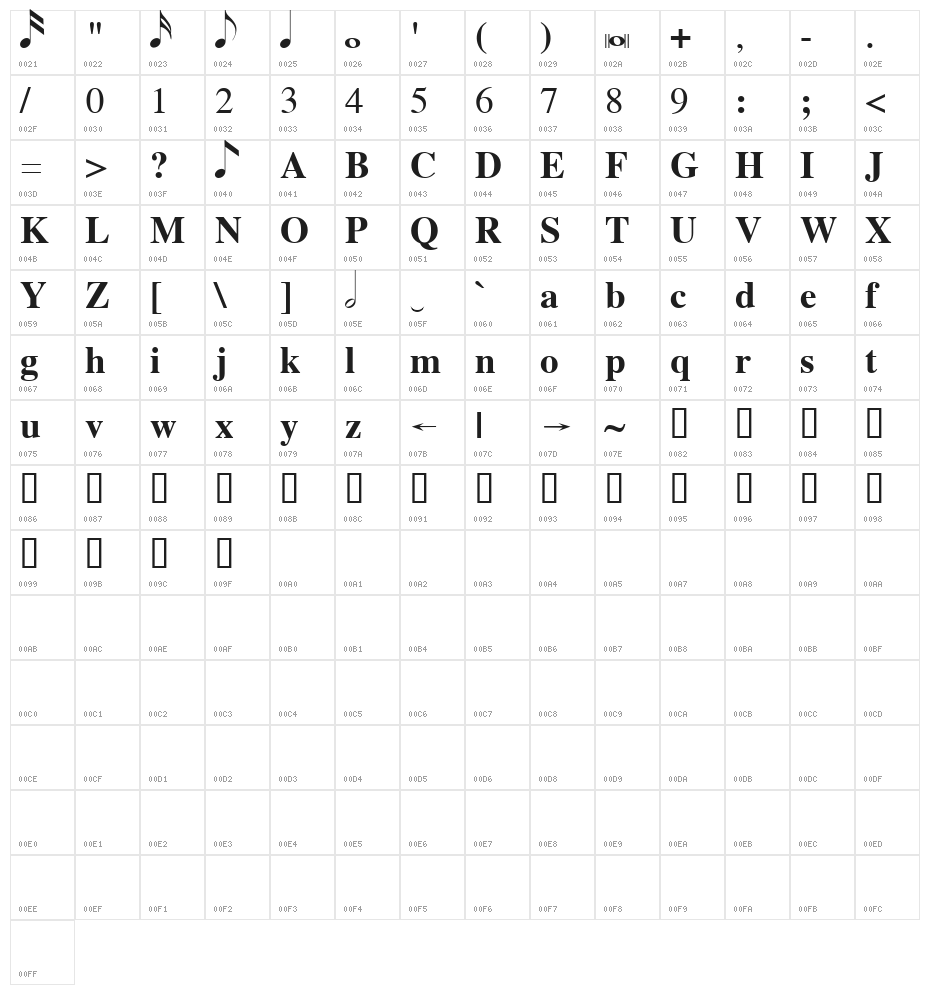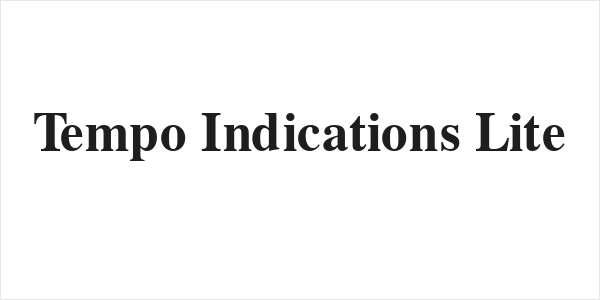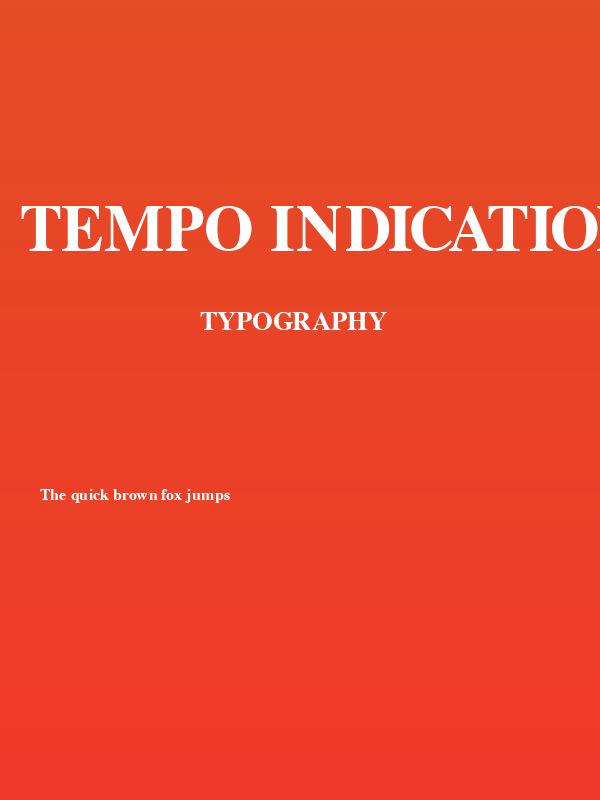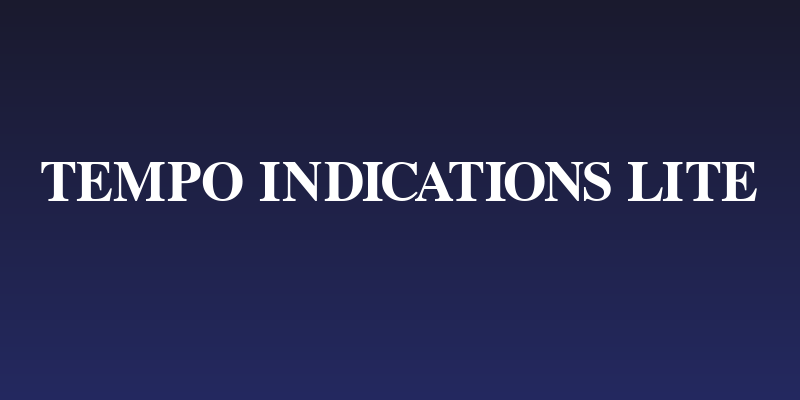
Tempo Indications Lite Font
Tempo Indications Lite Description
This font features a classic serif design with a strong presence and elegant curves. The uppercase letters are bold and commanding, while the lowercase letters maintain a balanced and readable form. The numerals are distinct and clear, making them suitable for various applications. The special characters, including musical notes and symbols, add a unique touch, enhancing its versatility. The font's overall style is timeless, making it suitable for both traditional and modern contexts. Its high contrast in stroke thickness adds to its readability and aesthetic appeal.
| Use Case | Headlines, Logos, Music publications |
| Proposed Projects | Ideal for music-related publications, elegant invitations, book covers, and branding materials. |